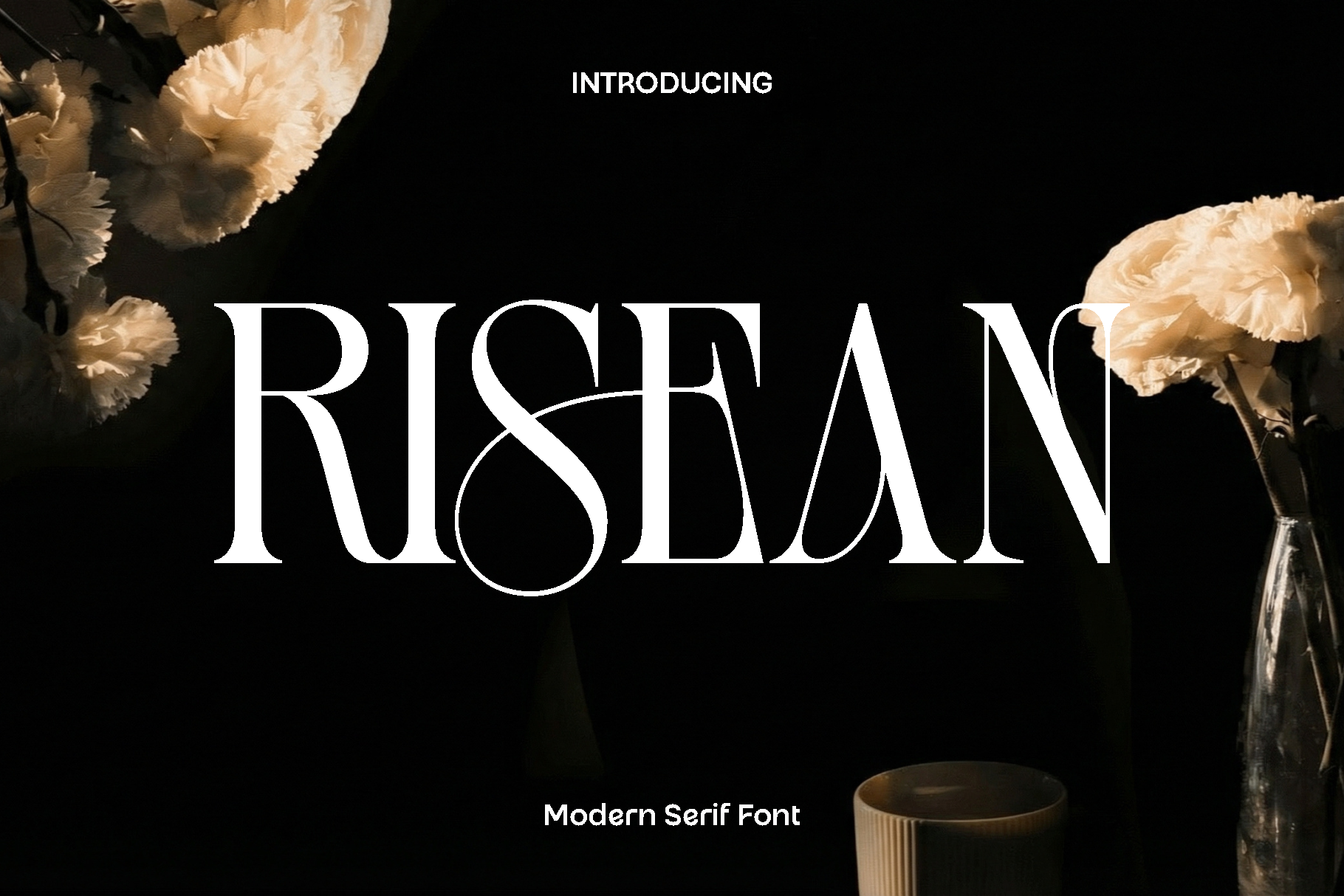
Risean Modern Serif Font
Risean is a sophisticated and versatile font designed to bring style, clarity, and personality to a wide range of creative projects. Its carefully crafted letterforms balance elegance and readability, making it an ideal choice for designers seeking a typeface that is both functional and visually striking. Risean exudes a modern charm while maintaining a timeless aesthetic, giving your work a professional and polished appearance.
Perfect for books, magazines, branding, logos, photography, blog headers, quotes, posters, and advertisements, Risean adapts seamlessly to both print and digital projects. Its clean lines and balanced proportions allow it to shine in large headlines, subtle body text, or creative typographic compositions, providing flexibility and impact in every design.
Risean is more than just a font; it’s a design companion that enhances the visual appeal of any project. Its elegant and contemporary style ensures that every piece of work feels refined and memorable, while its functional features make it a practical choice for professional designers and creatives alike.
Risean Font Features:
• Uppercase and lowercase characters
• Numerals, punctuation, and symbols
• Functional ligatures for smooth typography
• Multilingual support for broad language compatibility
Risean combines elegance, versatility, and usability, making it a must-have addition to any designer’s toolkit. It transforms everyday projects into sophisticated, eye-catching designs that leave a lasting impression.